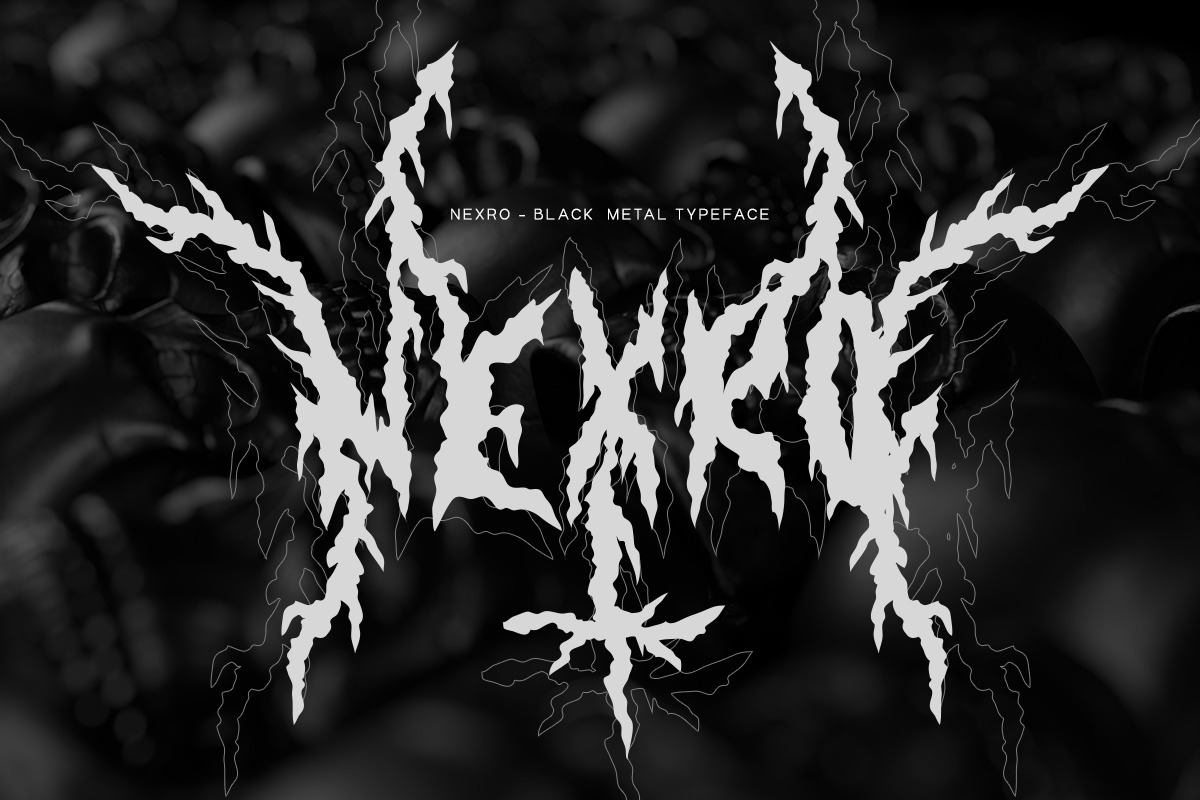
Nexro Font Free Download is a brutal and aggressive black metal typeface built for bold statements and dark aesthetics. With razor-sharp edges, chaotic structure, and raw intensity, Nexro is perfect for metal band logos, album covers, underground event posters, streetwear branding, and horror-inspired visuals.
This typeface screams rebellion and darkness, delivering a powerful visual punch that captures the essence of extreme music culture. If your project needs to radiate intensity, chaos, and attitude, Nexro is your go-to font. Nexro Font Free Download allows you to explore its fierce look in personal projects before securing a commercial license.
Unleash the darkness with Nexro — the black metal typeface that tears through silence with pure typographic rage.